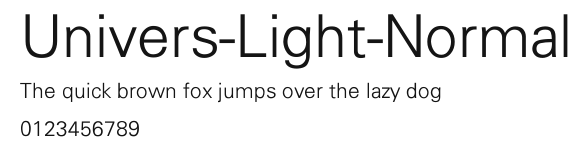
Univers-Light-Normal Preview
• Font Name: Univers-Light-Normal
• Full Font Name: Univers-Light-Normal
• PostScript Name: Univers-Light-Normal
About Univers-Light-Normal.ttf
Univers-Light-Normal.ttf is a modern, elegant sans-serif font designed for ultimate readability and visual harmony. Perfect for branding, headlines, web design, and print materials.